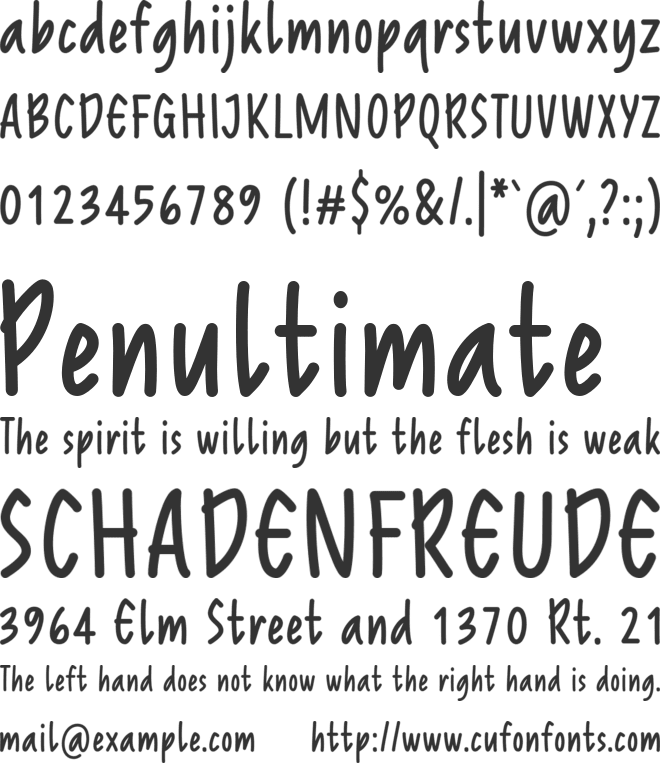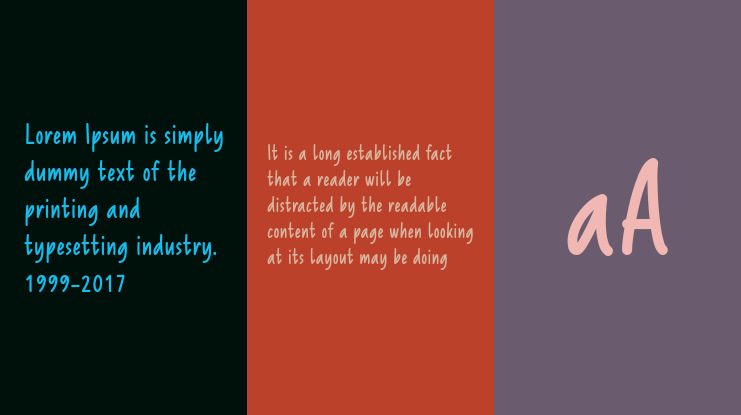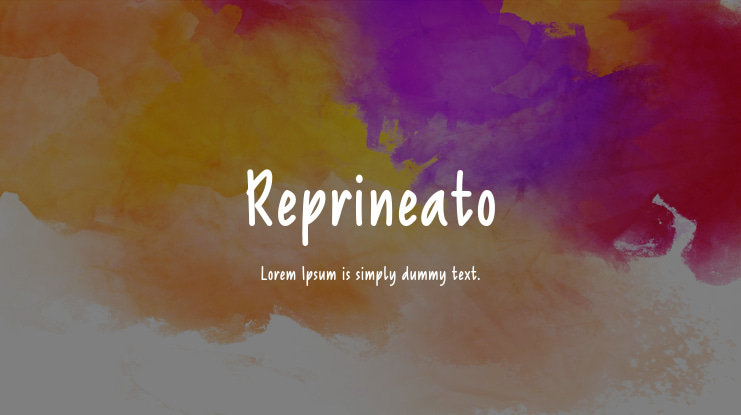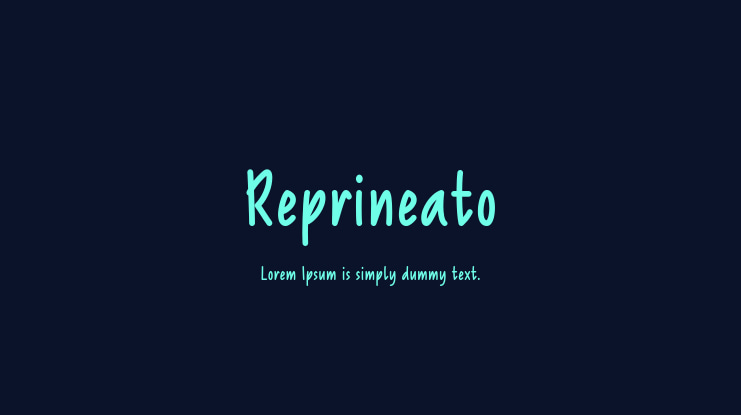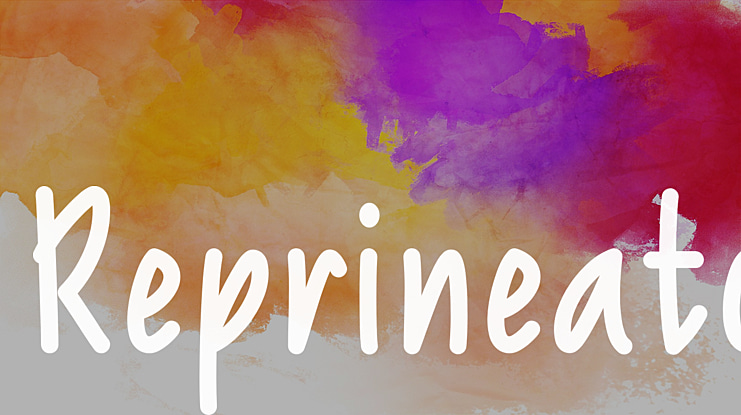
Reprineato Font Family
Reprineato © 7NTyes. 2017. All Rights ReservedReprineato is a bold expressive handwritten type created by Situjuh Nazara. It has a strong look and distinctive characters that makes it is easy to read and is great for adding a personal touch to designs without becoming too personal. This makes it perfect for adding a personal line in branding or marketing material.It is free for personal use only. You may support me to create more free for personal use fonts by donating as much as you wish to.For Commercial use license, get it exclusively only on Creative Fabrica: www.creativefabrica.com/product/reprineato/ref/87/ (https://www.creativefabrica.com/product/reprineato/ref/87/)Thank you for downloading and using Reprineato Font. :)